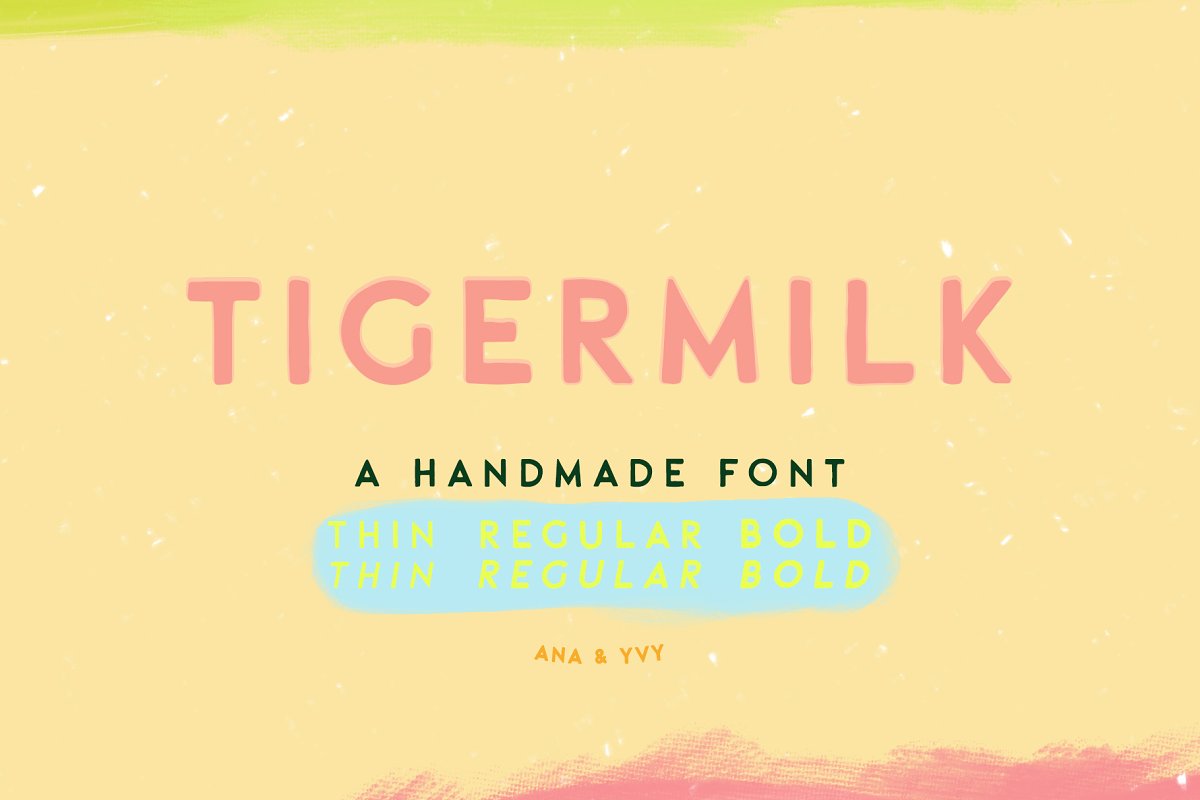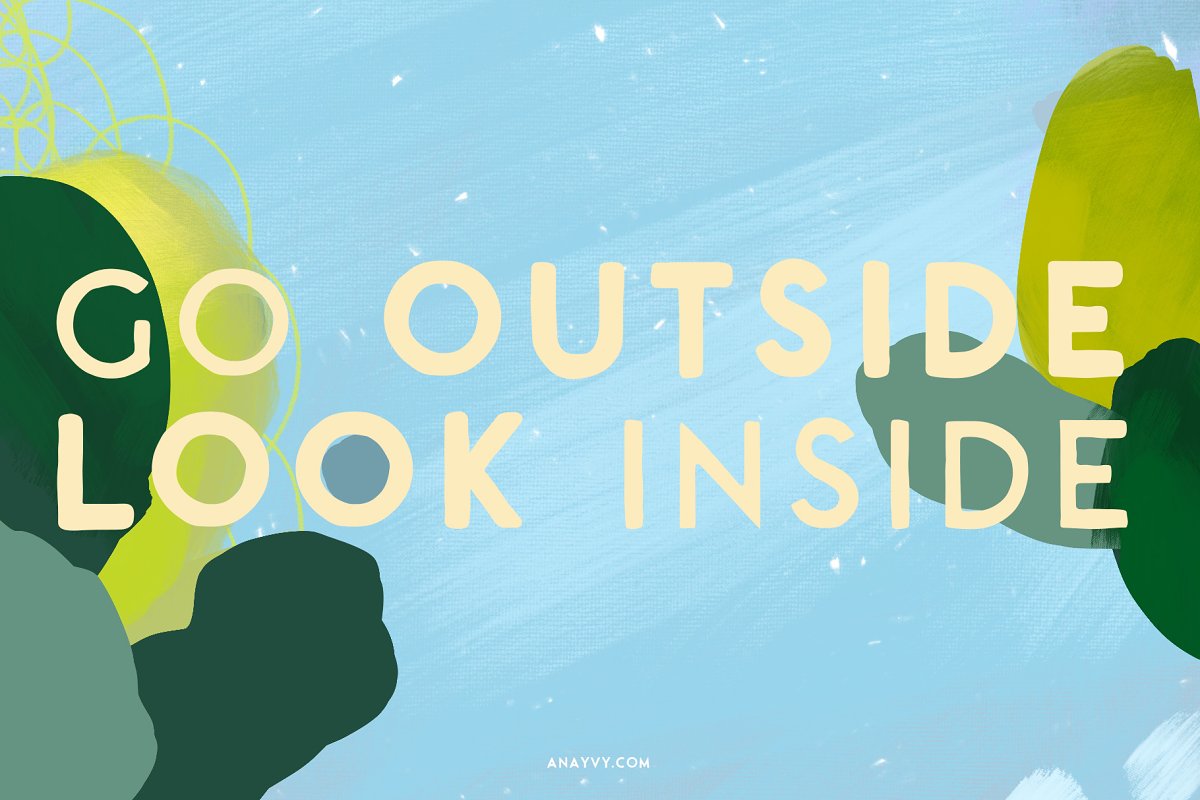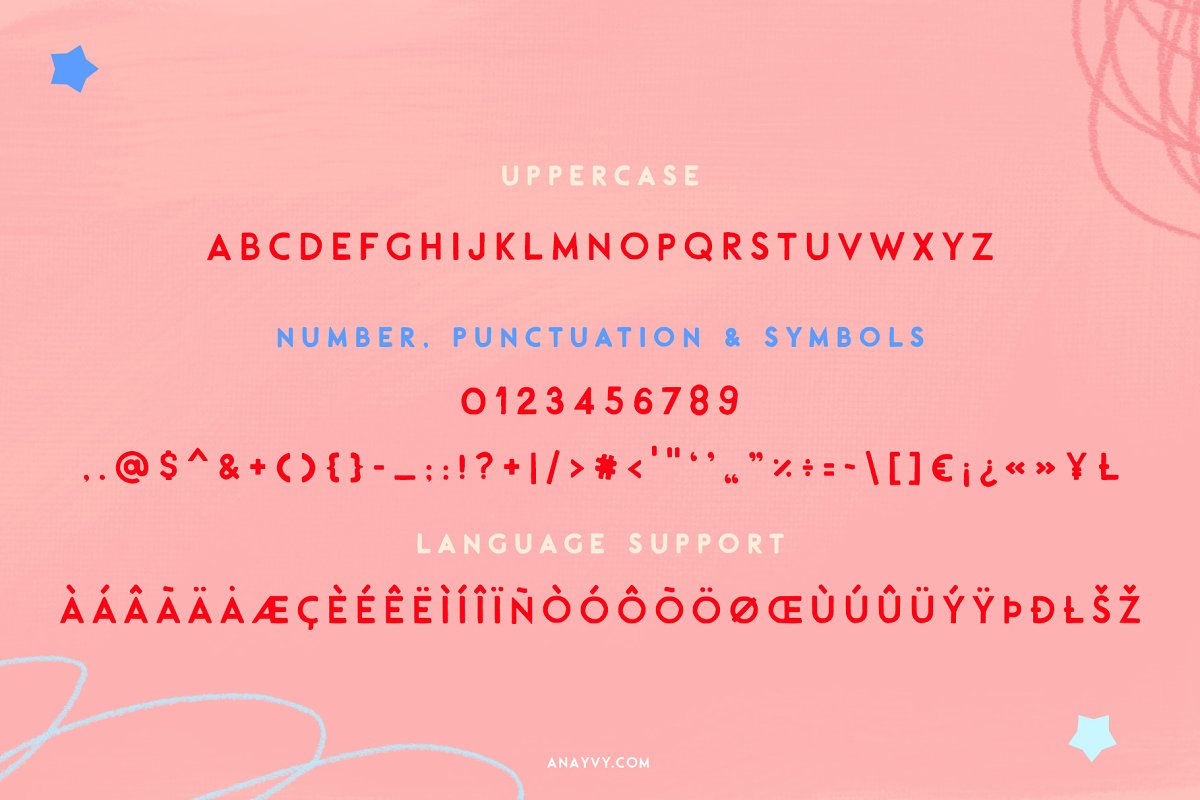
About the TIGERMILK handpainted cutiepie Font
Say hello to TIGERMILK – a hand drawn cute as candy uppercase font family, This collection of bold, regular and thin hand-lettered typography styles are perfect for quotes, greeting cards, playful book covers and more!Tigermilk comes with a small goodie pack of hand drawn abstract elements – just for fun!WHAT’S INSIDE:Tigermilk Bold italicTigermilk Regular italicTigermilk Thin italicLanguage Support : Danish, English, Finnish, French,German, German (Switzerland), Italian, Norwegian Bokmål, Norwegian Nynorsk,Portuguese, Spanish, Swedish, and Swiss German